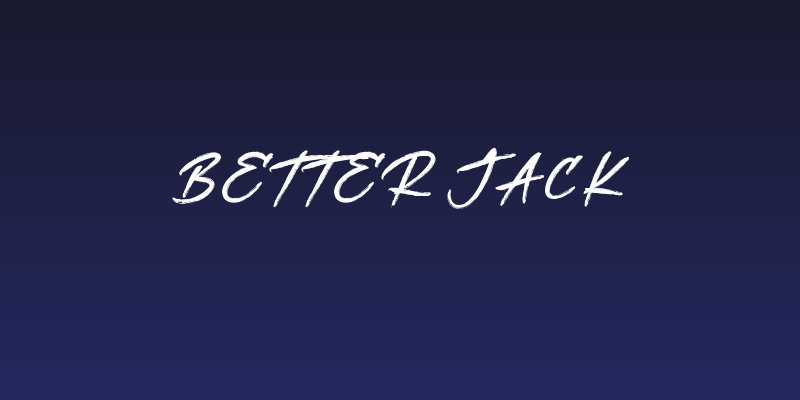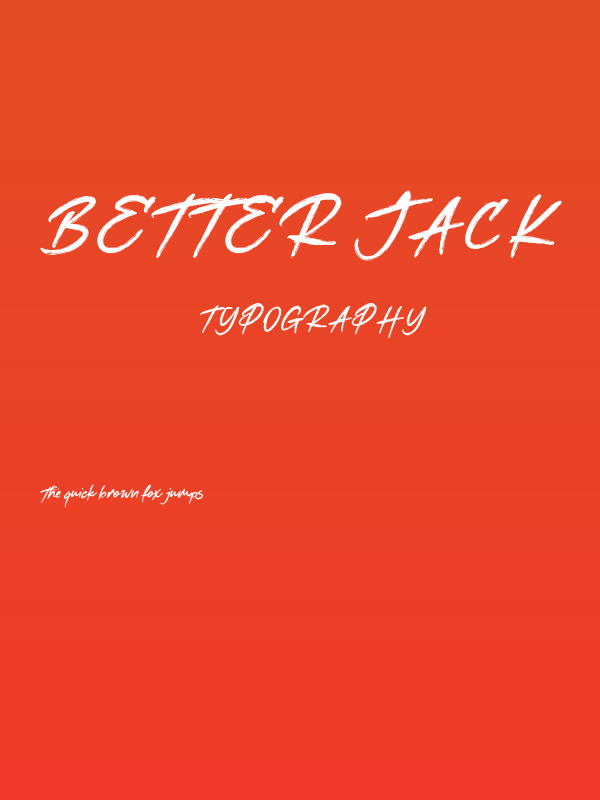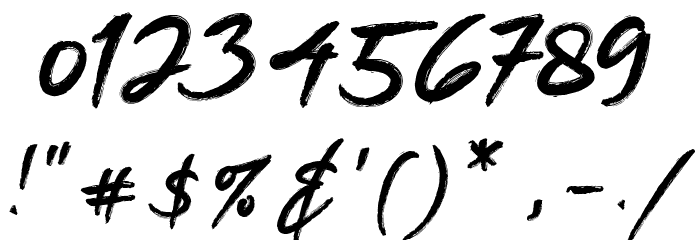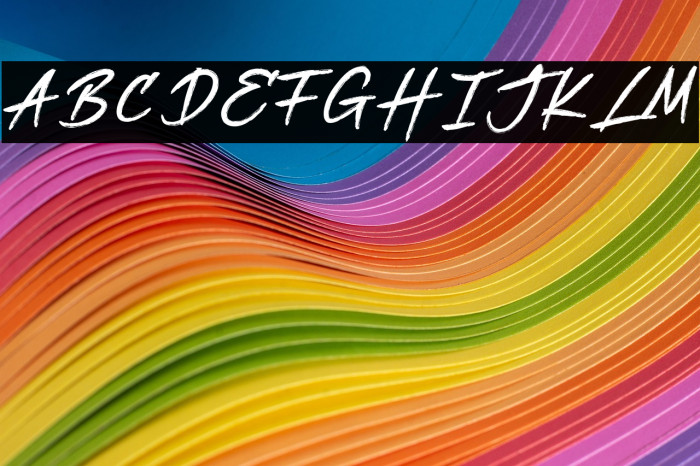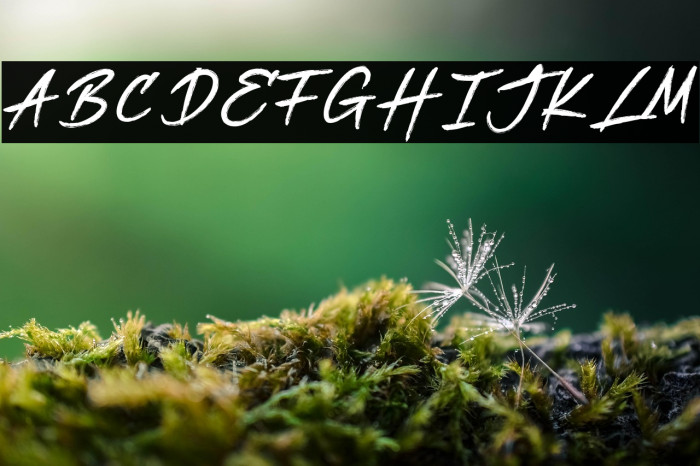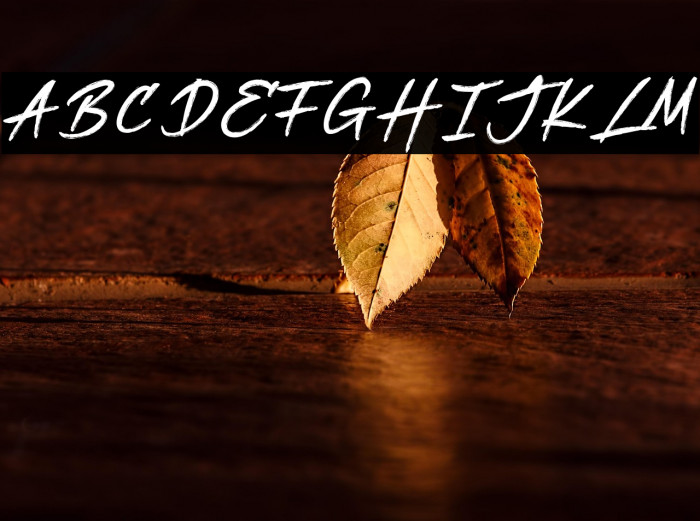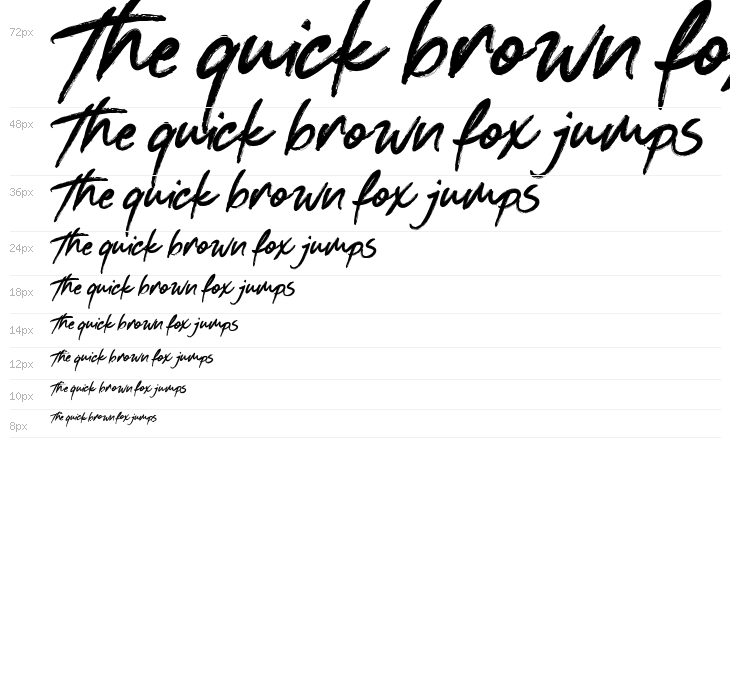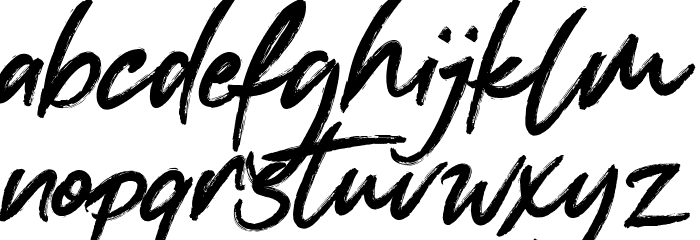
Better Jack Font
Better Jack Description
This font exudes a dynamic and energetic vibe with its bold, brush-like strokes and fluid, cursive style. The uppercase letters are slightly slanted, giving a sense of motion and spontaneity, while the lowercase letters maintain a consistent flow, enhancing readability despite their artistic flair. The numerals and special characters follow the same expressive style, making them stand out with a unique personality. The overall appearance is both modern and artistic, suitable for creative projects that require a personal touch.
| Overall Style | Modern, Artistic |
| Proposed Projects | Ideal for branding, logo design, artistic posters, and creative invitations. |